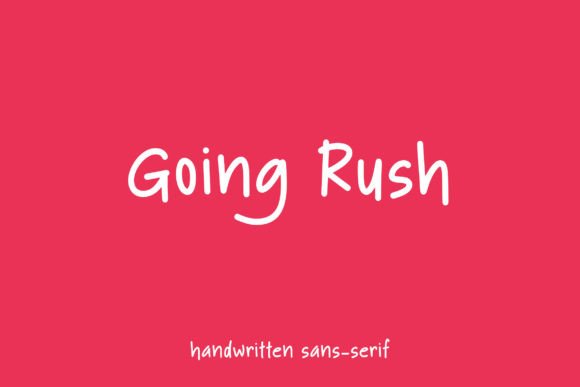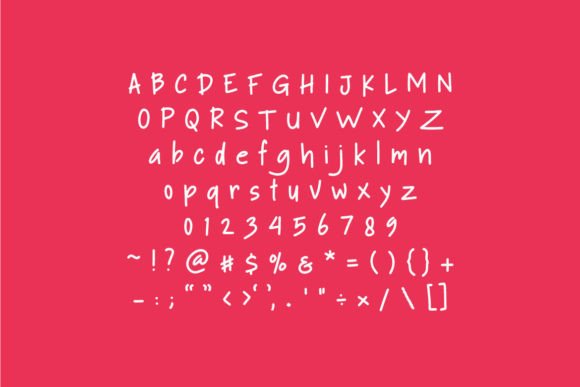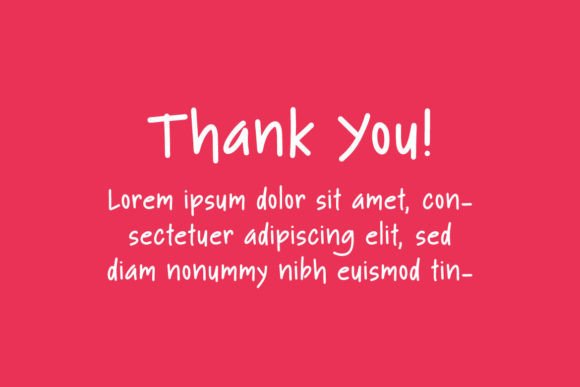
Going Rush Font
About Going Rush Font
**Going Rush**: *Where Minimalism Meets Elegance*
Going Rush isn’t just a font; it’s a masterpiece of minimalist design meticulously crafted to breathe life into your most creative ideas. With its beautifully balanced characters and clean lines, this handwritten font effortlessly adds an air of elegance and simplicity to your designs, making it a versatile choice for a wide range of creative applications.
What sets Going Rush apart is its remarkable ability to seamlessly blend minimalism with elegance. The font’s carefully designed characters exude an air of grace and authenticity, making it an ideal choice for projects that require a touch of sophistication and a clean aesthetic. Going Rush is the font that can effortlessly enhance your creations, ensuring they stand out with a refined sense of simplicity and style.
Going Rush strikes the perfect balance between modern style and handwritten charm, making it a versatile and captivating choice for projects that demand both precision and elegance.
In branding and logos, Going Rush adds a unique sense of character and refinement, giving your brand a distinctive and memorable signature. It possesses the power to convey a brand’s attention to detail and values while infusing an element of minimalistic beauty.
For various design projects, from print materials to digital designs, the font’s well-crafted characters enhance the visual impact of your content, making it more captivating and memorable. Whether you’re working on advertisements, social media graphics, or any other visual content, Going Rush brings an air of timeless elegance and simplicity to your projects.
One of Going Rush’s most remarkable qualities is its adaptability. It can transition seamlessly from a formal and polished tone to a more relaxed and friendly one, making it suitable for a wide range of creative applications. Its ability to evoke minimalistic beauty ensures that it remains a cherished choice for designers and creators across diverse industries.
In summary, Going Rush is more than just a font; it’s a design asset that masterfully combines minimalism with elegance. Its unique blend of well-crafted characters and modern allure positions it as an indispensable tool for anyone seeking to infuse sophistication and simplicity into their visual communication. Embrace the minimalism and elegance of Going Rush, and watch your creations come alive with a clean and refined style, enhancing a wide pool of designs with its versatile presence.